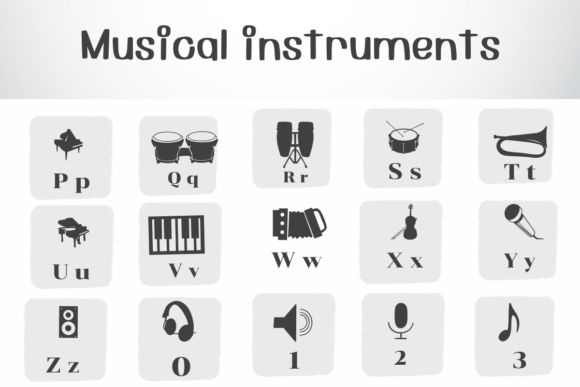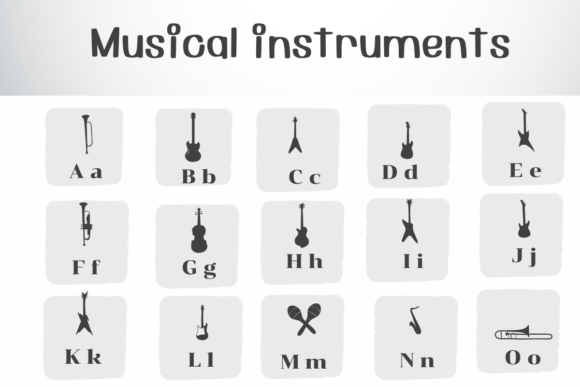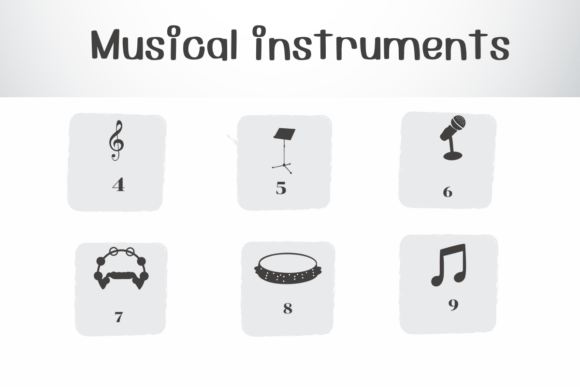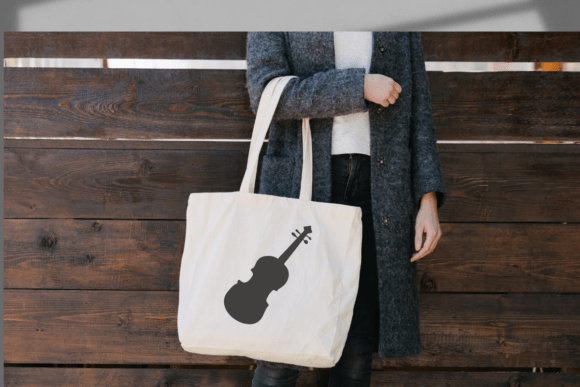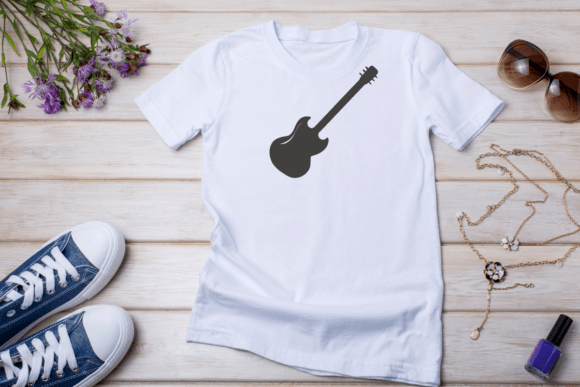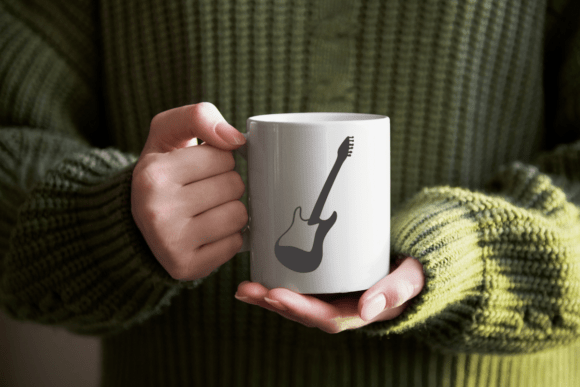
Introduction to Musical Instruments Font
Musical Instruments is a fun and versatile dingbat font featuring a collection of beautifully designed music-themed icons.
From guitars and pianos to drums, microphones, and more, this font is perfect for music-related projects, posters, invitations, educational materials, and creative designs Simply type a letter, and a stylish musical icon appears.